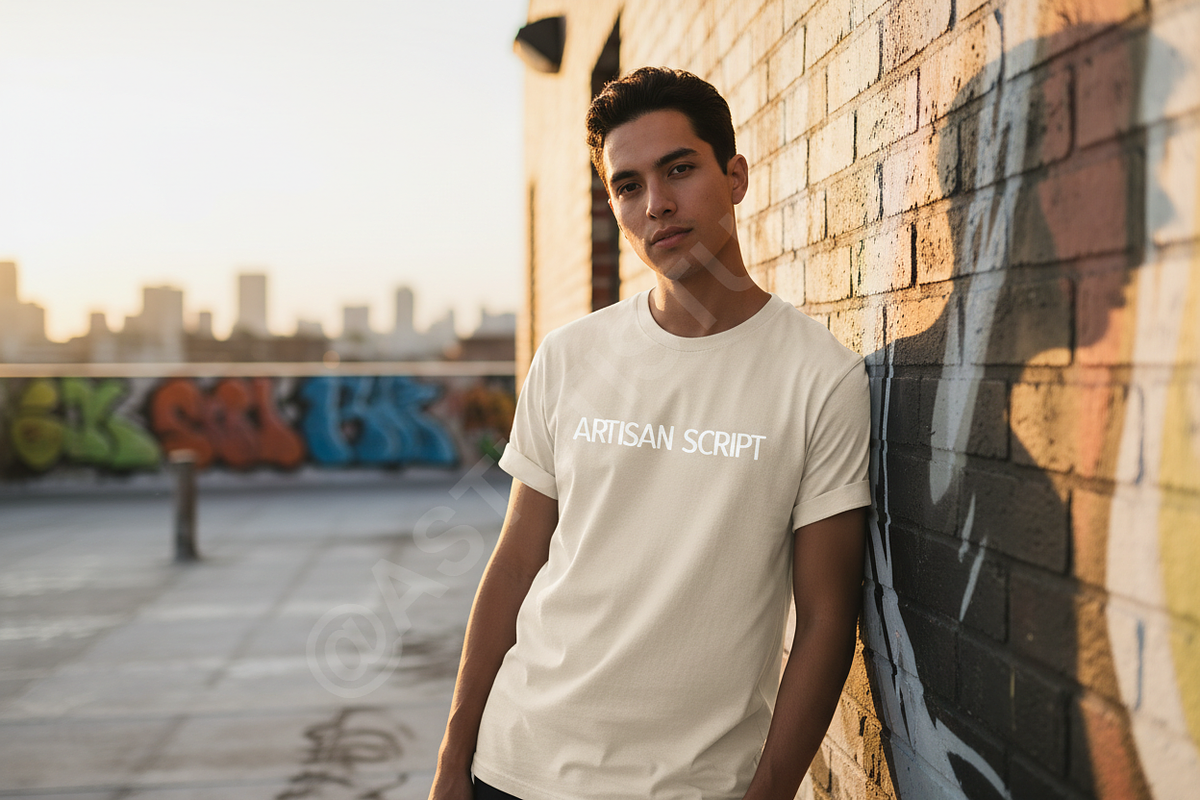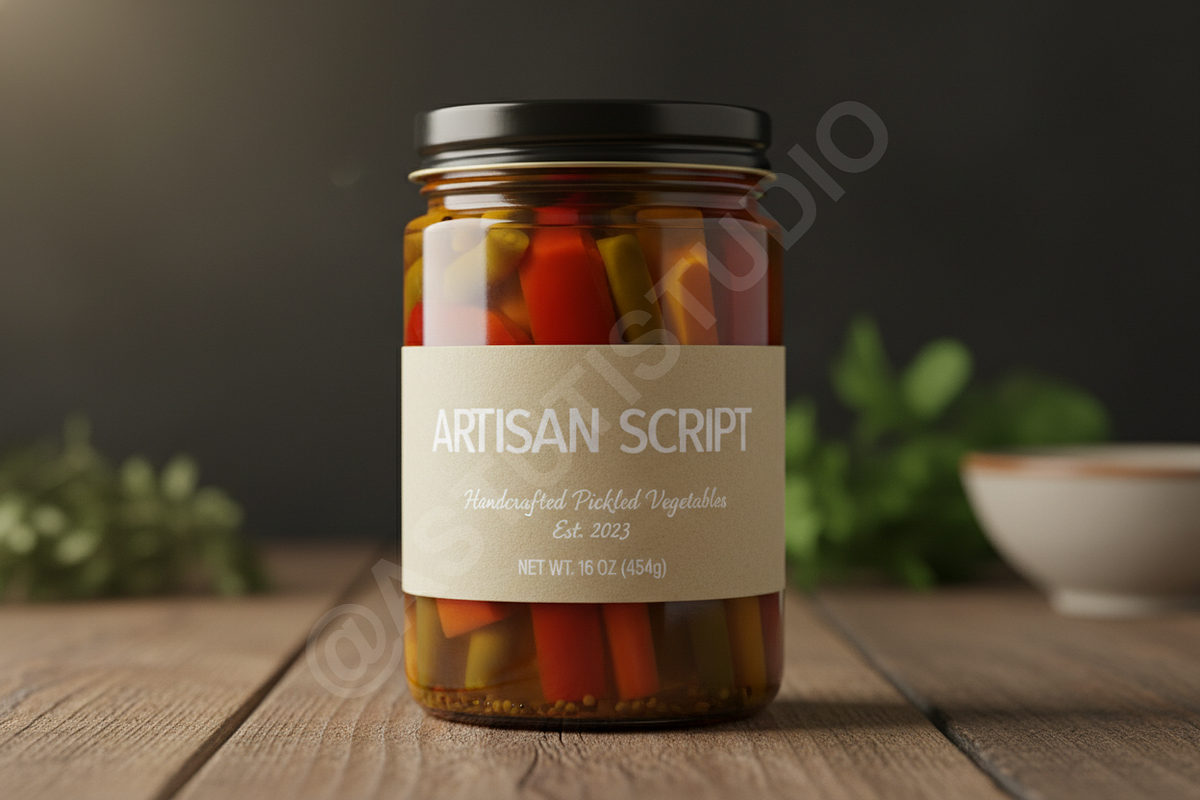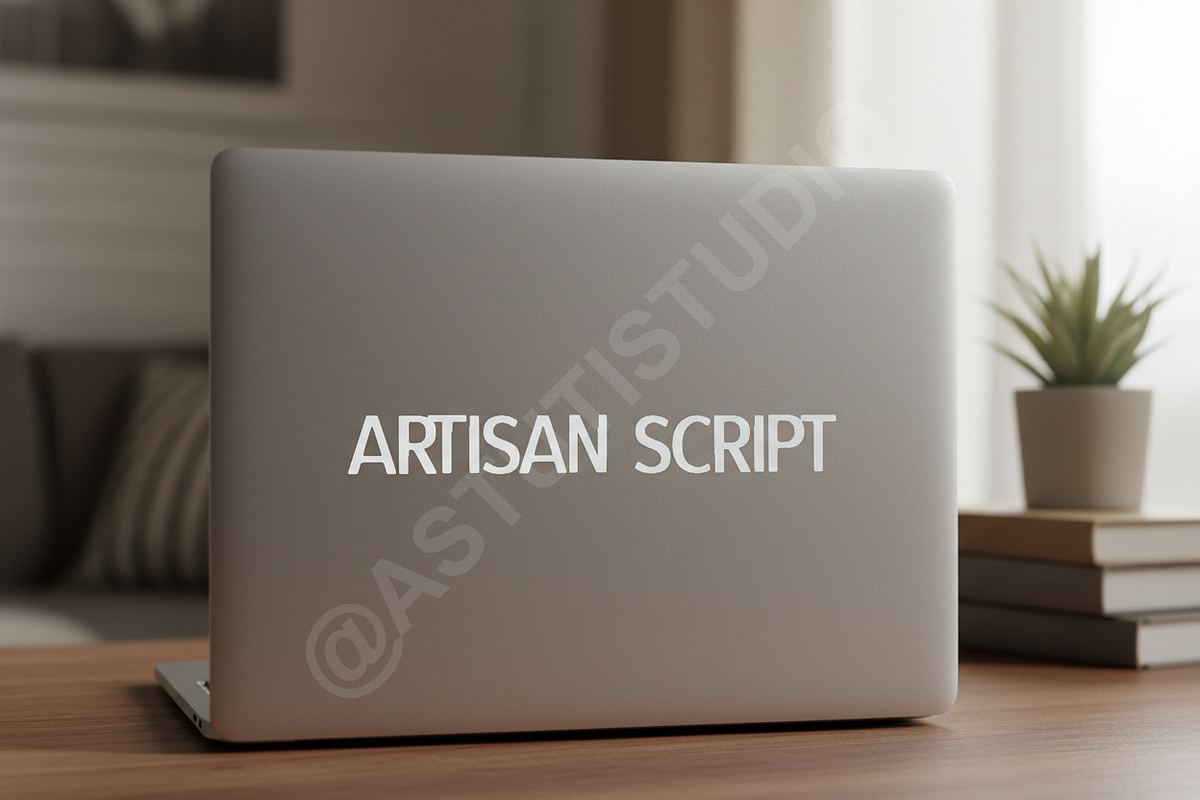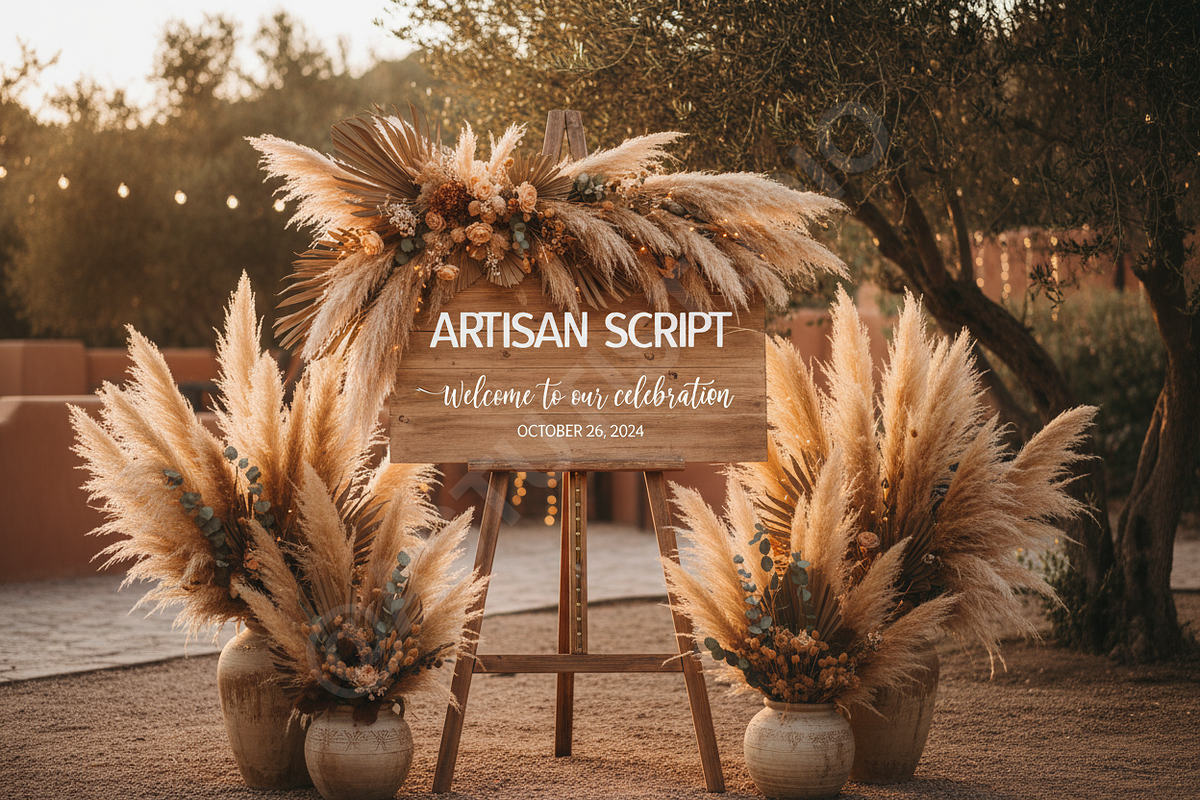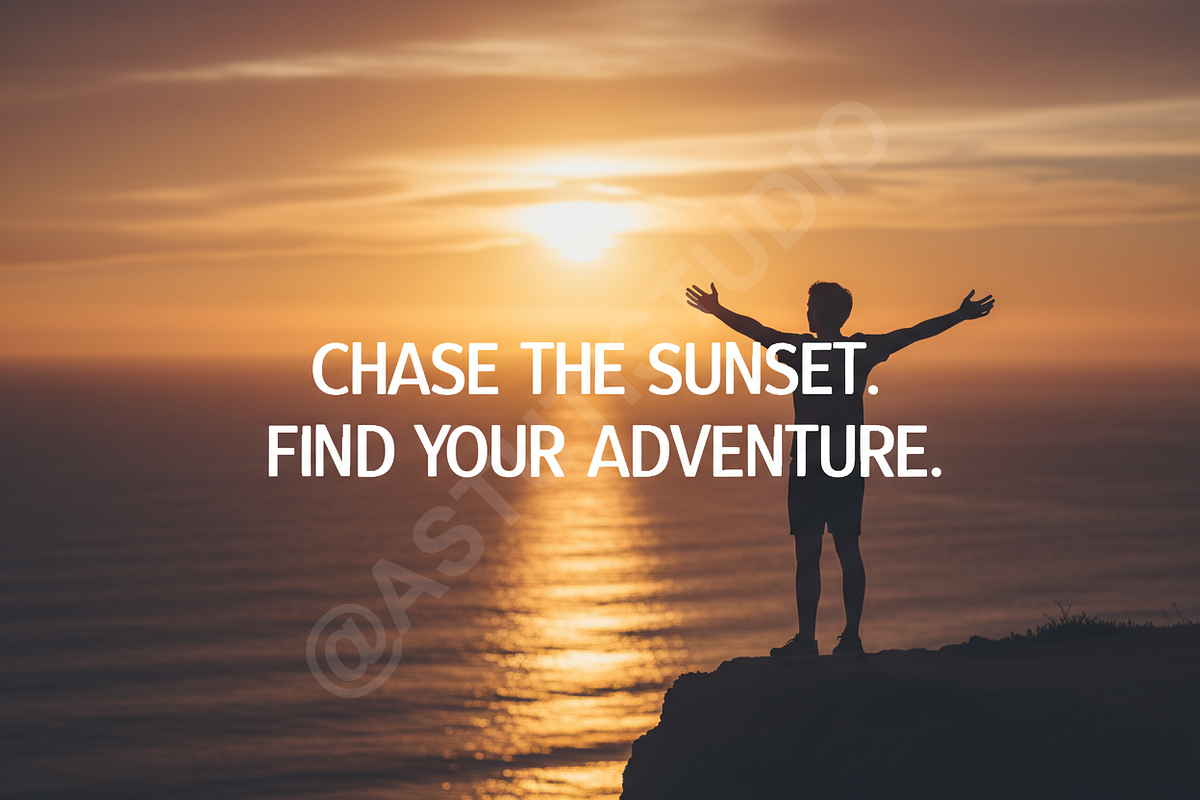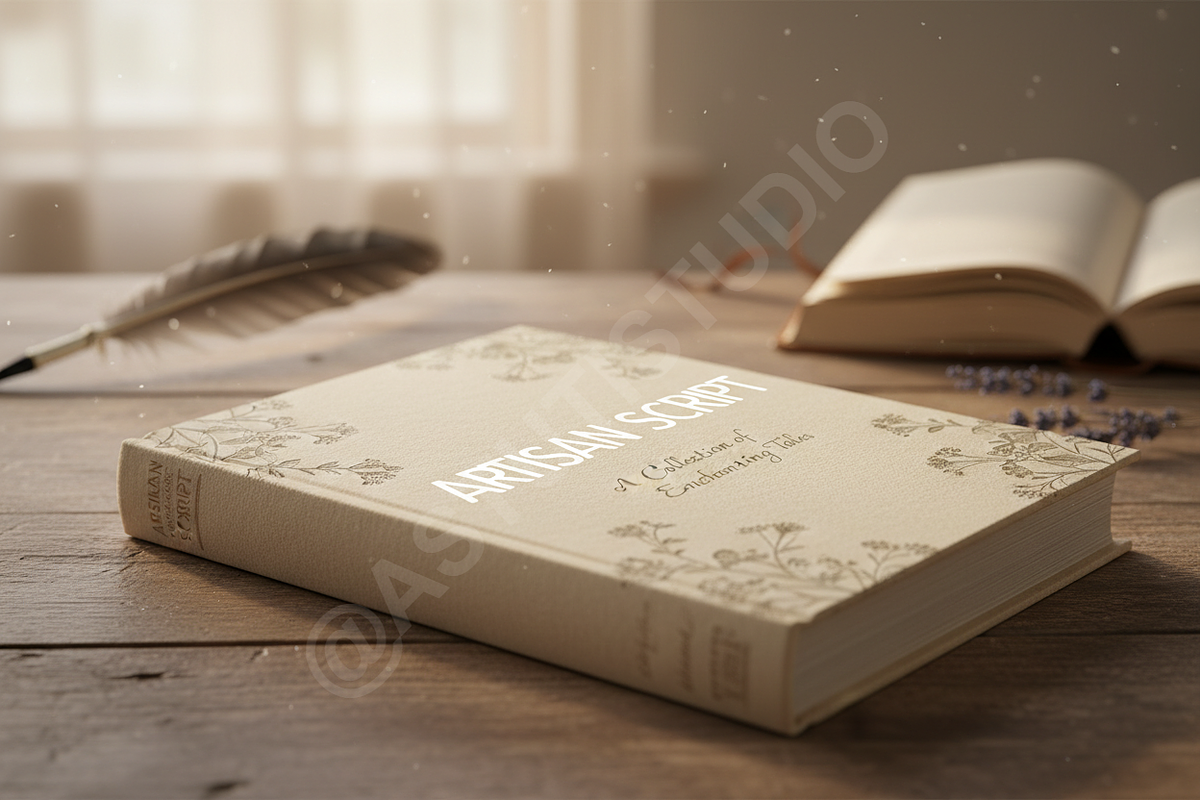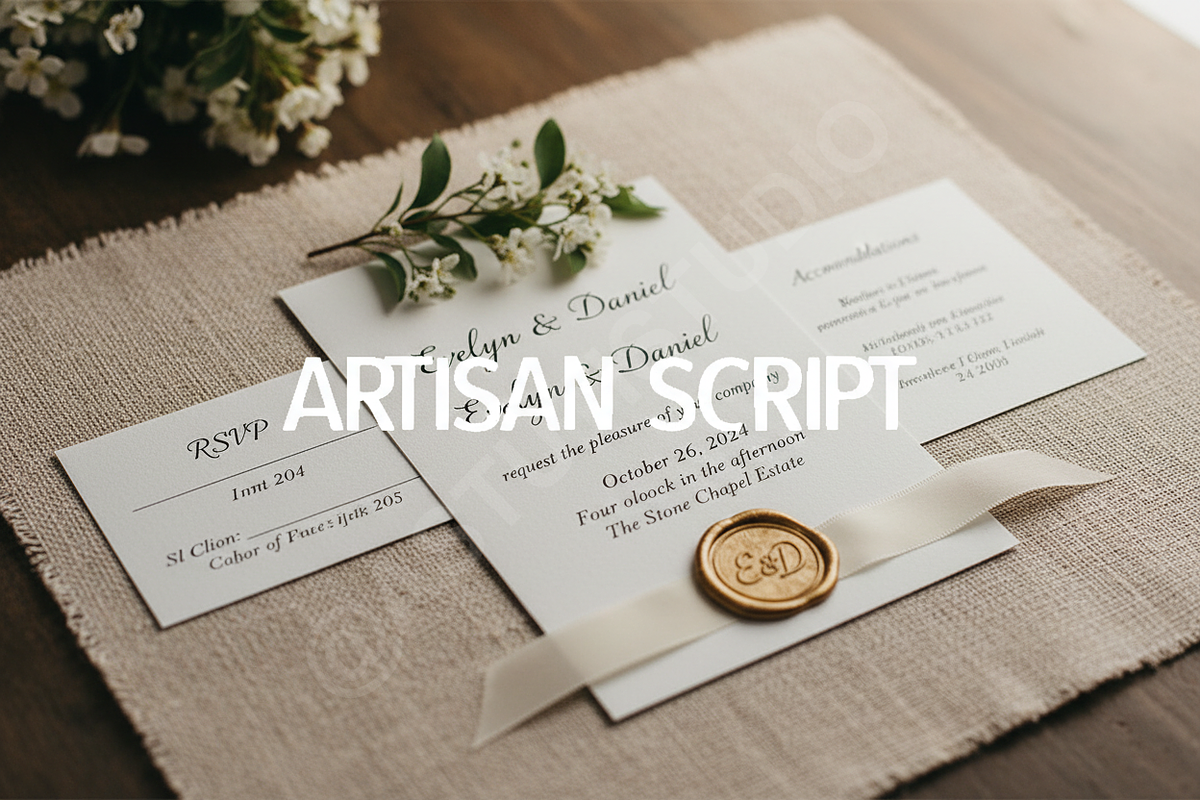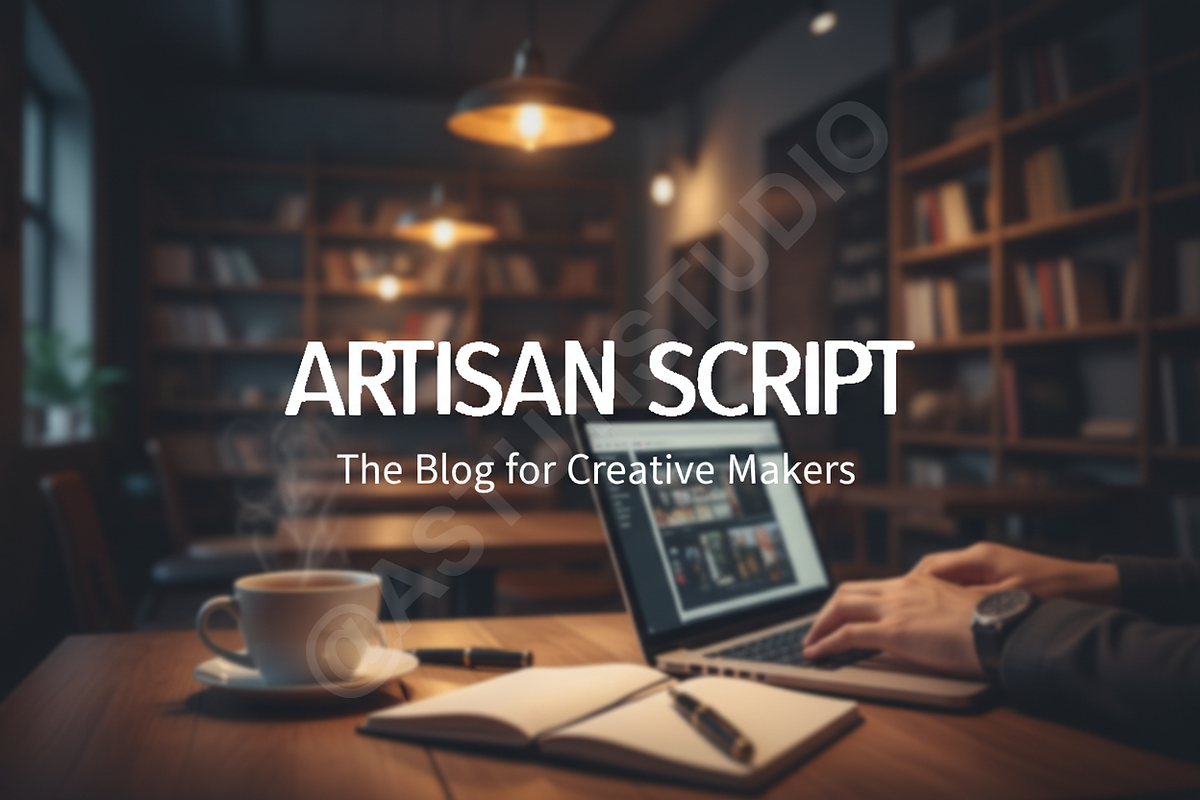
Qapi | Elegant Modern Sans Serif
Qapi is a premium sans serif typeface meticulously crafted for high-end visual identities. It balances minimalist geometric forms with subtle organic touches, making it an essential tool for designers who value elegance and clarity. This font is perfect for luxury branding, editorial layouts, fashion industry assets, and a sophisticated social media presence.
- Clean, modern silhouettes with refined proportions
- Balanced kerning for optimal legibility
- Full uppercase and lowercase character sets
- Comprehensive numeral and punctuation glyphs
- Multi-language support for global design reach